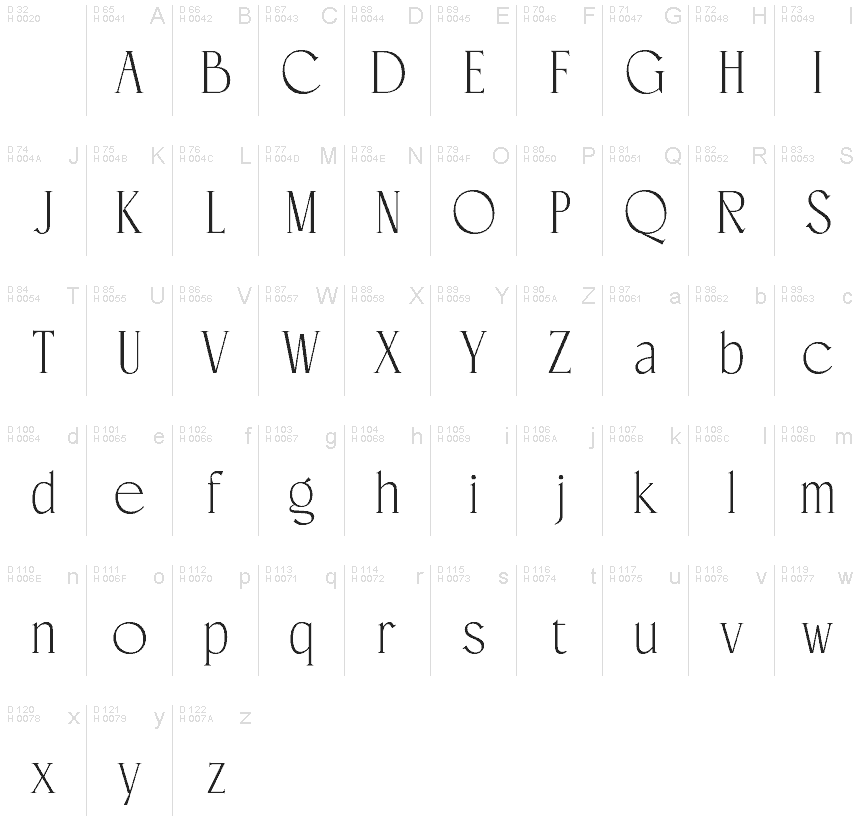
CS Rachel Regular Demo
CS Rachel font by Craft Supply Co. is an elegant and refined serif font with a touch of modern appeal. Having a light weight, it gives the typography projects sophistication and glances of uniqueness. All letters are well-balanced, while vividly presenting its expressive personality to all the readers.
This free serif font matches all sizes and purposes whether titles, headers, subheadings, texts and more. It will especially work well in weddings or other invitation stationery design such as greeting and thank you cards, visual branding both printed (packaging) or direct branding (websites/apps) typography within small-to-medium length text/bodies projects.